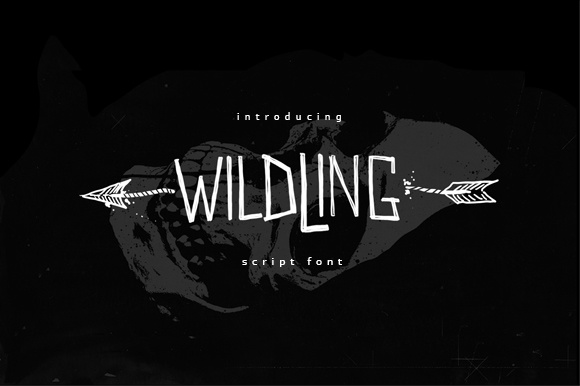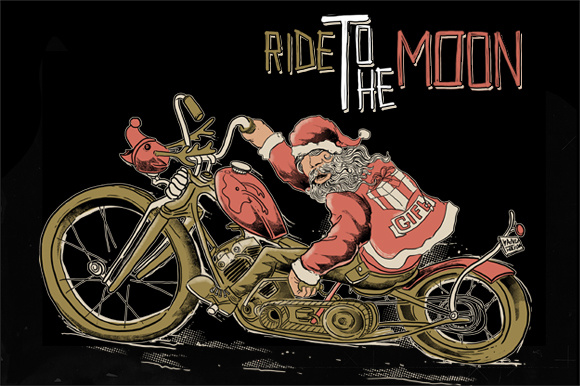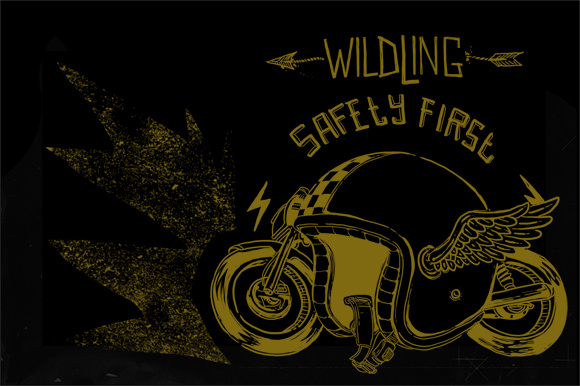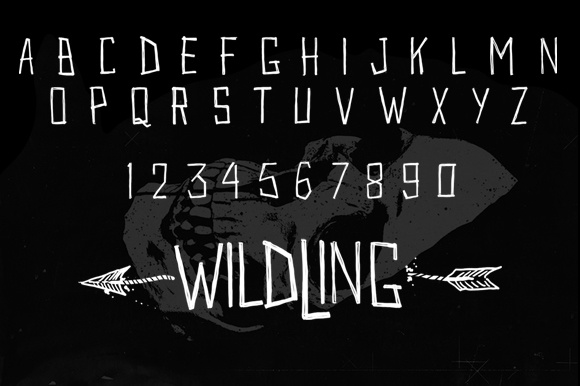
Wildwildling Font
About Wildwildling Font
“Wildwildling” is a new, casual script font. Whether you need a modern vision or a vintage feeling, Wildwildling has the look for you. Wildwildling is great for any kind of usage from advertising materials to packaging or posters. Wildwildling is offering you a handwritten font with textured lines and multiple unique styles.